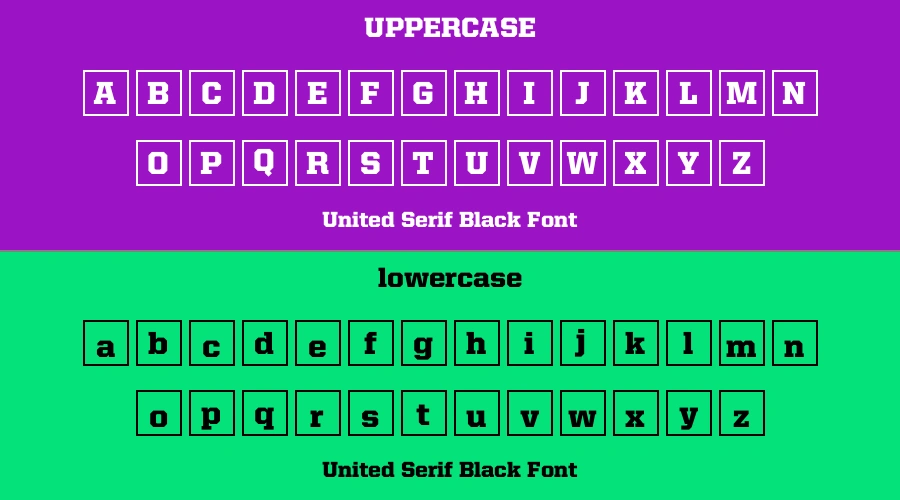
About United Serif Black Font
United Serif Black Font stands out for its distinctive combination of measured spacing and classic beauty. Ideal for corporate communications, it provides the precision and application safety that professional projects demand. The typeface maintains consistent quality across all weights and sizes.
Key features include refined concave curves and practical isolated forms, enhancing typographic expression. In campaign headers applications, United Serif Black Font demonstrates exceptional overlay performance. The terminal angle and brand personality contribute to its distinctive character and professional appeal.